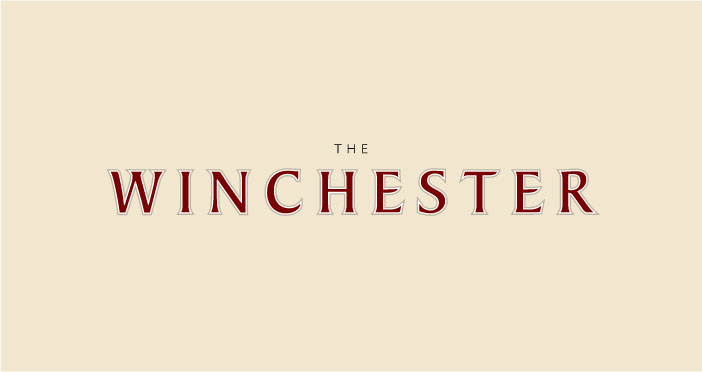
M Mich81 macrumors newbie Original poster Oct 18, 2006 #1 Can anyone tell me what this font is? Cheers
Macnoviz macrumors 65816 Oct 18, 2006 #2 Mich81 said: Can anyone tell me what this font is? Cheers View attachment 60122 Click to expand... looks a bit like bookman old style, with some tinkering
Jaffa Cake macrumors Core Oct 18, 2006 #3 It looks like it's based on Baker Signet to me. Attachments Picture-2.png 4.7 KB · Views: 174
chasingapple macrumors regular Oct 18, 2006 #4 Jaffa Cake said: It looks like it's based on Baker Signet to me. Click to expand... I agree with you.
vectormasked macrumors member Oct 19, 2006 #5 I don't know.....but the letter E is quite different. what I can say after all the wine I drank today is that it seems to be a quite common typeface. I know I wasn't of big help, but I am a bit drunk! Cheers!
Belly-laughs macrumors 6502a Oct 19, 2006 #6 You should pop down to the Winchester and have a few more 😀 Baker Signet looks spot on.